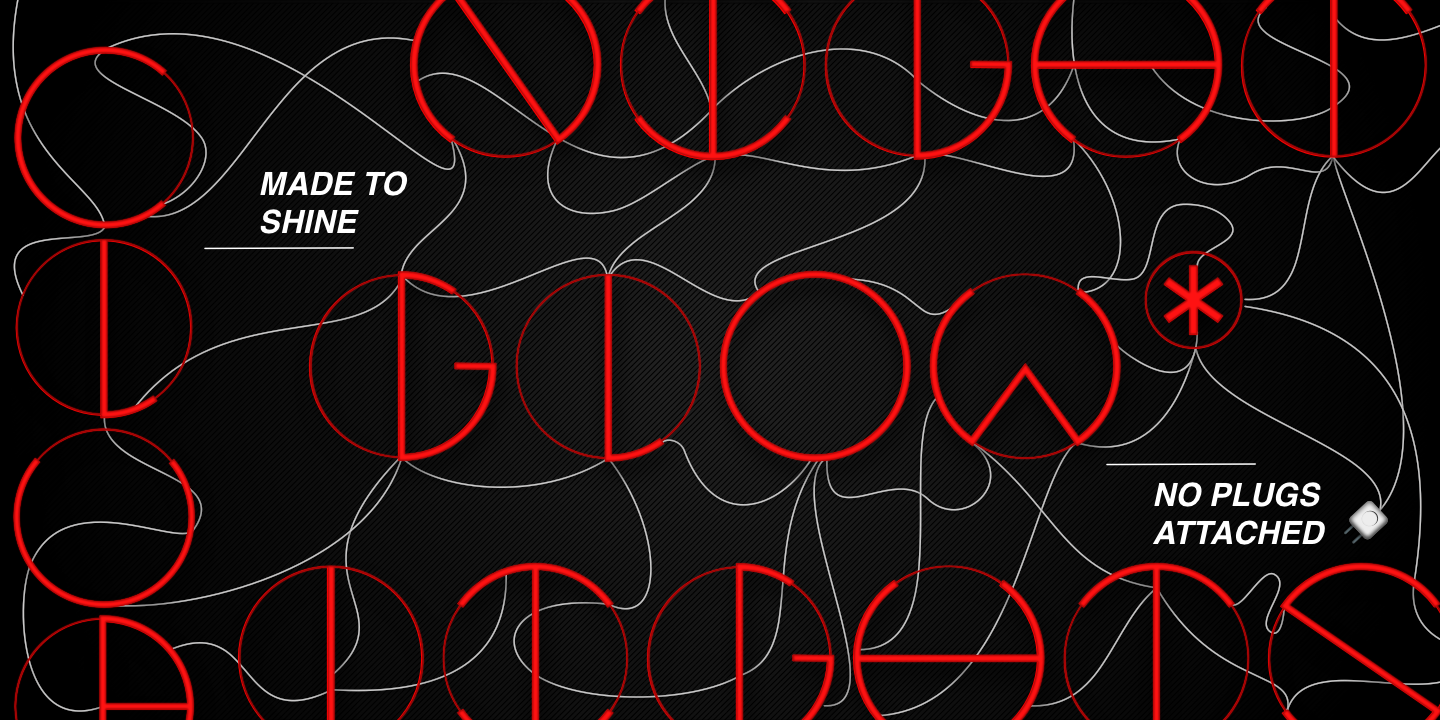
Circle typeface Font is perfect for geometric branding, modern tech interfaces, circular design systems, mathematical publications, architectural projects, systematic signage, contemporary corporate communications, and precise geometric typography.
What makes Circle typeface Font exciting is its perfect geometric character that embodies circular harmony and mathematical precision through circular-based letterforms and systematic appeal. This sophisticated typeface features circular construction, geometric details, and systematic personality that captures the essence of perfect geometry and mathematical beauty, making it ideal for projects seeking to communicate precision, geometric harmony, and systematic excellence with authentic circular appeal and geometric sophistication.
The Circle typeface Font family includes Thin, Light, Regular, Medium, Bold, and Black weights, each maintaining the characteristic circular precision and geometric harmony that define this distinctive typeface's systematic personality and mathematical sophistication.
Circle typeface Font Free Download provides access to a typeface that perfectly captures the essence of geometric perfection and circular design principles. This systematic font brings authentic geometric aesthetics to contemporary projects, making it essential for tech companies, architectural firms, and design studios targeting audiences who appreciate geometric precision and systematic design. The font's circular construction and geometric details ensure immediate recognition of precision and harmony while its distinctive character creates visual connections among individuals appreciating mathematical beauty and geometric perfection. Whether designing systematic brand identities, geometric interface systems, or mathematical publication projects, this font delivers the geometric authenticity and circular sophistication that precision-focused audiences expect. Its geometric foundation and circular symbolism make it indispensable for projects celebrating mathematical beauty, geometric design, and the elegant perfection of circular principles, ensuring communications resonate with audiences who value the geometric harmony, mathematical precision, and systematic beauty that define authentic geometric excellence and circular design across diverse mathematical and architectural applications.